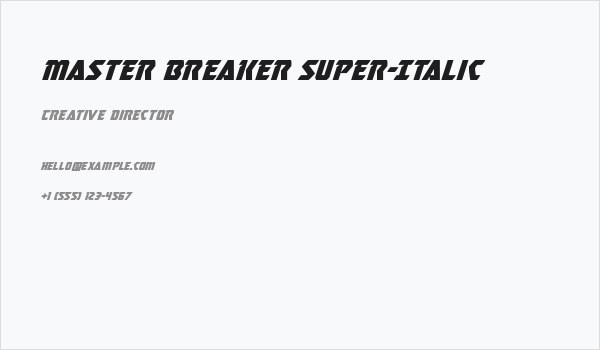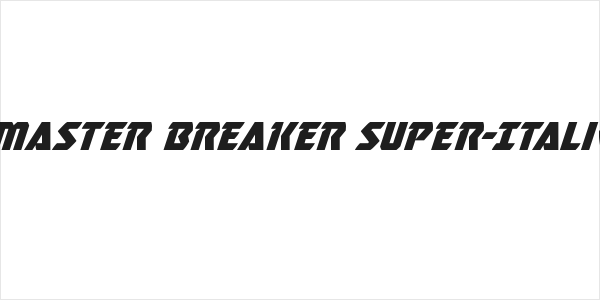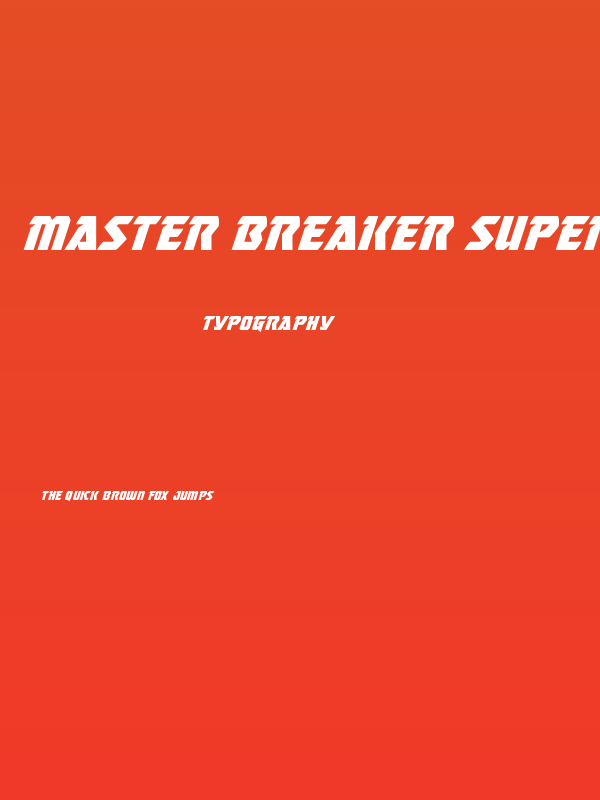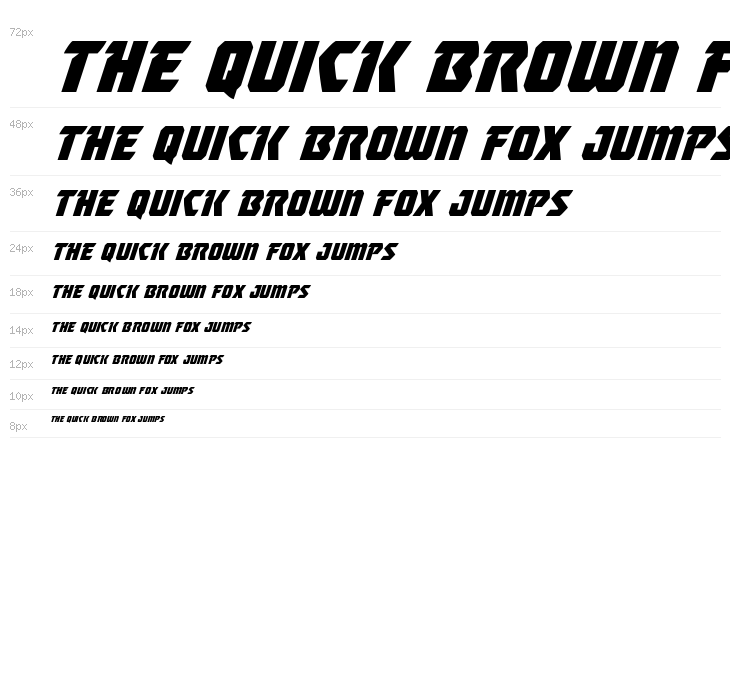
Master Breaker Super-Italic Font
Master Breaker Super-Italic Description
This font exhibits a bold and dynamic style with a strong italic slant, giving it a sense of motion and energy. The characters are angular and sharp, with a distinct geometric influence that adds a modern edge. The uppercase and lowercase letters maintain a consistent style, emphasizing the font's cohesive design. Numbers and special characters are crafted with the same boldness, ensuring uniformity across all glyphs. The overall appearance is striking and impactful, making it suitable for attention-grabbing designs.
| Proposed Projects | Ideal for sports branding, action movie posters, video game titles, and dynamic advertising campaigns. |